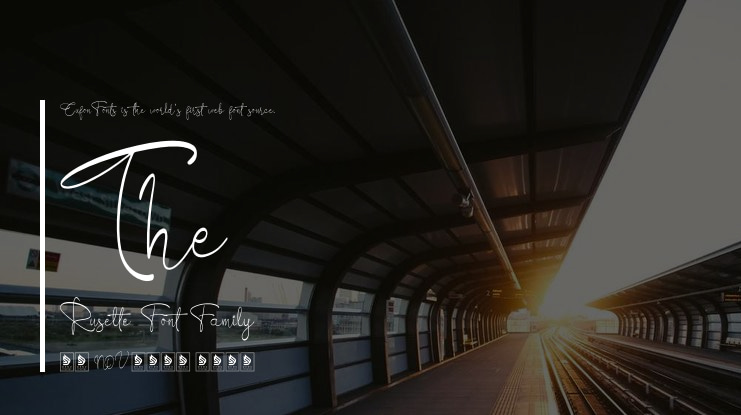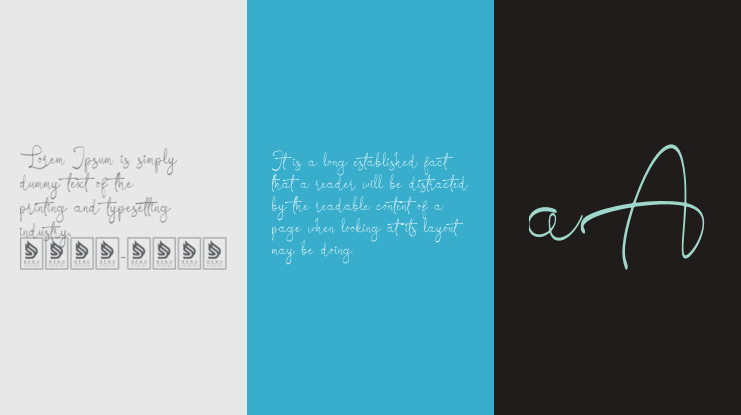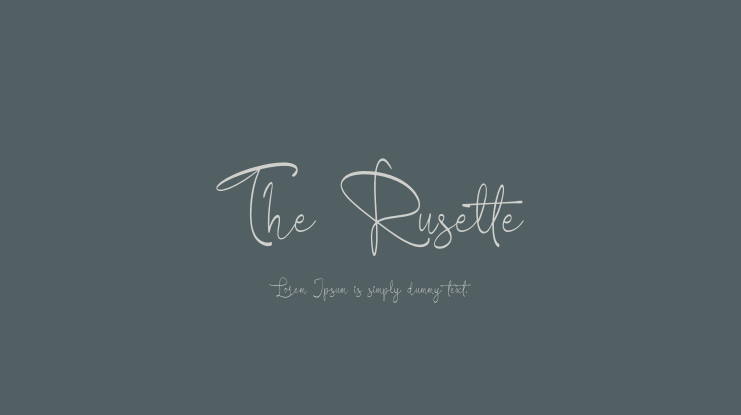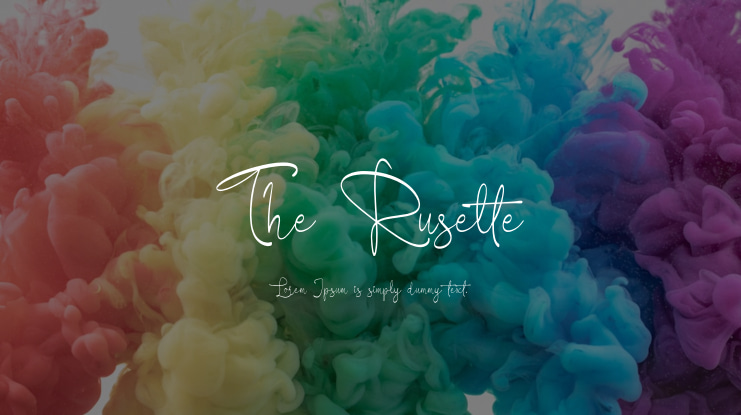
The Ruselte Font
The Ruselte | Handwritten Signature is perfect for various projects, including logos, branding, homeware designs, product packaging, mugs, quotes, posters, shopping bags, t-shirts, book covers, name cards, invitation cards, greeting cards, labels, photography, watermarks, special events, and any other projects where a beautiful script is desired.